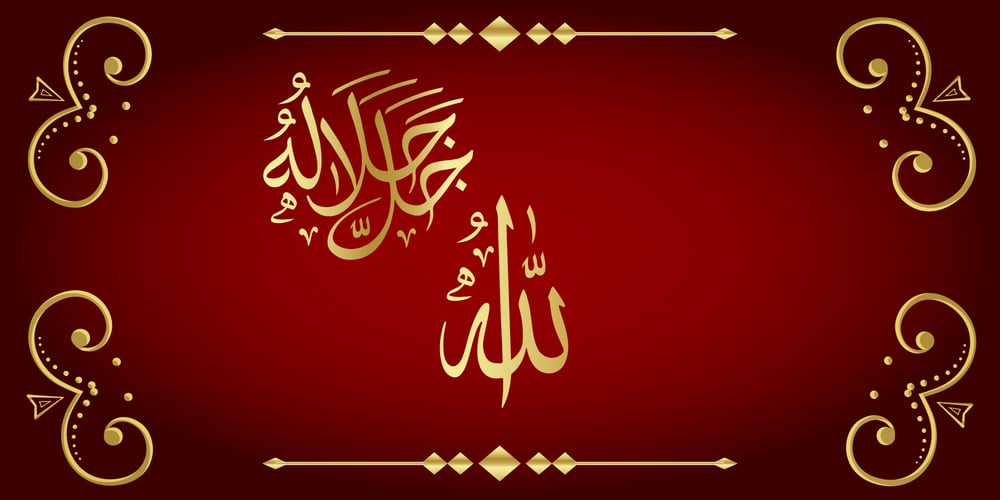
99 Names of ALLAH Jalla Font Family was designed by Ibrahim Abdo and published by Islamic Calligraphy75. 99 Names of ALLAH Jalla contains 1 styles and family package options. We have transformed the “99 names of ALLAH” into a font. That means each key on your keyboard represents 1 of the 99 names of ALLAH Aaza Wajal. The fonts work with both the English and Arabic Keyboards. We call this Calligraphy “Jalla Jalaluhu” because we have added “jalla jalaluhu” to every single name in the font. You will also notice that we made “jalla jalaluhu” as big as the names, so this way it looks very clear when you use it in the text. The first “Alef” doesn’t have a “hamzit wasel” nor a “fatha”, this indicates to skip the pronunciation of that first letter. So instead of saying “AR-RAHMAAN” you say “R-RAHMAN”. (in the zip file you will find a pdf file explaining the differences in the “harakat”, pronunciation and spelling according to the Holy Quran). Decorative letters used in this calligraphy: “Mim, Aain, Sin, HHe, He, Kaf, Ta & Saad”. Purpose & use: – Writers: Highlight the names in your texts in beautiful Islamic calligraphy. – Editors: Use with kinetic typography templates (AE) & editing software. – Designers: The very small details in the names does not affect the quality. Rest assured it is flawless. The MOST IMPORTANT THING about this list is that all the names are 100% ERROR FREE, and you can USE THEM WITH YOUR EYES CLOSED. All the “Tachkilat” are 100% ERROR FREE, all the “Spelling” is 100% ERROR FREE, and they all have been written in accordance with the Holy Quran. No names are missing and no names are duplicated. The list is complete “99 names +1”. The +1 is the name “ALLAH” ‘Aza wajal. Another important thing is how we use the decorative letters. In every font you will see small decorative letters, these letters are used only in accordance with their respective letters to indicate pronunciation & we don’t include them randomly. That means “mim” on top or below the letter “mim”, “sin” on top or below the letter “sin”, and so on and so forth. ————————————————————————————————————————— Here is a link to all the extra files you will need: https://drive.google.com/drive/folders/1Xj2Q8hhmfKD7stY6RILhKPiPfePpI9U4?usp=sharing —————————————————————————————————————————